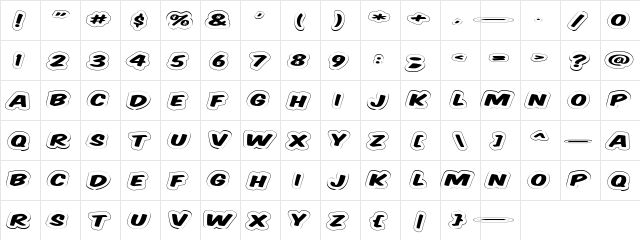
VTCSuperMarketSaleDisplayWired Regular
| Designer | WolfBainX |
Design Context for VTCSuperMarketSaleDisplayWired Typeface
VTCSuperMarketSaleDisplayWired is built around its visual character rather than neutral utility — its distinctive forms are designed to make an impression at display sizes.
Font Pairing: Pair with a clean neutral sans-serif for body copy to let VTCSuperMarketSaleDisplayWired's character lead without overwhelming the composition.
Pro Tip: Treat VTCSuperMarketSaleDisplayWired as the centrepiece of your typographic hierarchy. One strong heading set in a decorative face can carry an entire layout.